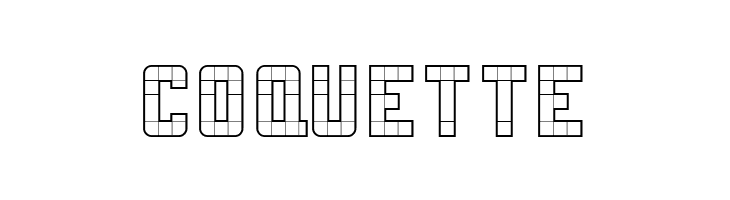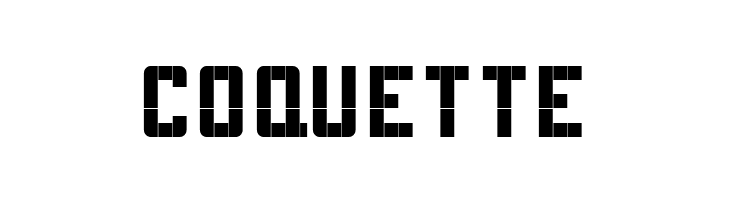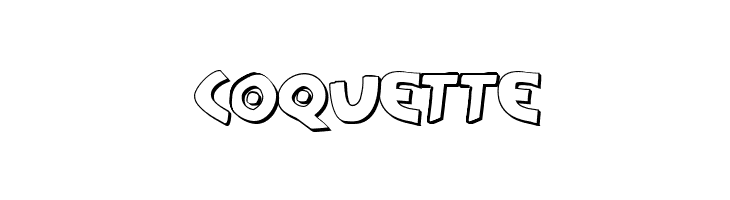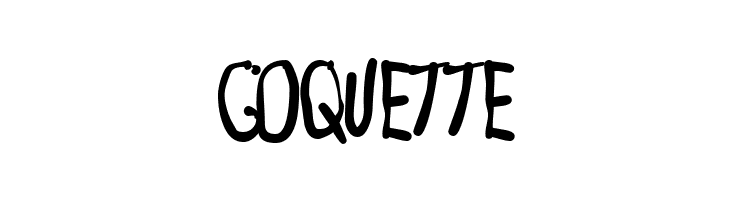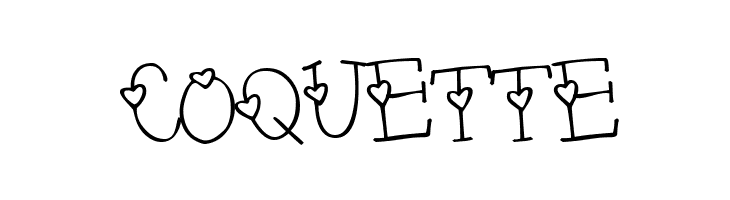
• 300 Trojans Leftalic
A bold, italicized font with a playful and dynamic style.
• 300 Trojans Shadow
A bold, shadowed font with angular, dynamic characters.
• 321 Alphabet
A geometric, pixelated font with a futuristic, digital aesthetic.
• 321 Katakana
A bold, geometric font with a digital, pixelated style.
• 32768 NO
A playful, handwritten font with bold, rounded characters and a whimsical style.
• 37 Kilobyte
( Fonts by Dieter Schumacher )
A bold, geometric font with an industrial and futuristic design.
• 3x5
A bold, geometric font with a pixelated, digital appearance.
• 3x5 Outline
A geometric, grid-based outline font with a modern and technical look.
• 4 my lover
A whimsical, heart-adorned font with a playful and romantic style.
• 4 Star Face Font